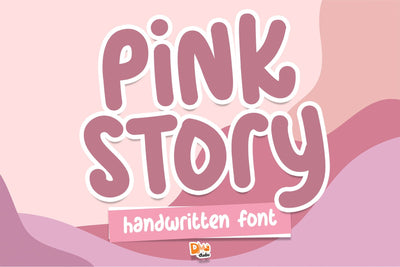
Pink Story Font
Introducing the Pink Story Font, a delightful and whimsical typeface that brings a touch of charm and elegance to your design projects. Inspired by a blend of modern sophistication and a dash of playfulness, this font is perfect for adding a feminine and stylish vibe to your branding, invitations, and creative endeavors.
- Elegantly Whimsical Design: The Pink Story Font boasts an elegantly whimsical design, combining modern aesthetics with a playful twist. Its graceful letterforms and gentle curves create a unique and captivating visual appeal.
- Versatile Application: Whether you're designing wedding invitations, social media graphics, or branding materials, this font adapts seamlessly to various design projects, adding a touch of sophistication and femininity.
Usage:
- Branding and Logo Design: Create distinctive and memorable logos that reflect your brand's personality with the Pink Story Font.
- Invitations and Stationery: Design elegant wedding invitations, greeting cards, and stationery, infusing a touch of romance and style.
- Social Media Graphics: Elevate your social media presence with visually appealing graphics and posts that stand out, thanks to the unique charm of this font.
- Blog and Website Design: Enhance the visual appeal of your blog or website with a font that combines readability with a touch of feminine flair.
Unleash the elegance and charm of the Pink Story Font in your designs. Elevate your projects with this unique typeface that seamlessly blends modern sophistication with a touch of whimsy.